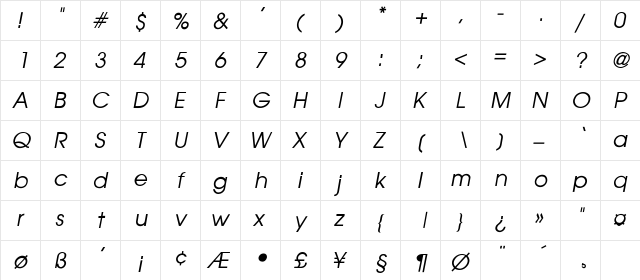
AvantGarde-Thin-Italic Regular Font Preview
AvantGarde-Thin-Italic Regular
AvantGarde-Thin-Italic Regular Font Details
Design Context for AvantGarde-Thin-Italic Typeface
AvantGarde-Thin-Italic is a composed and adaptable typeface that performs quietly and consistently across a wide range of design contexts. The slanted form adds forward momentum and visual energy. Its slender proportions lend an understated elegance to any composition.